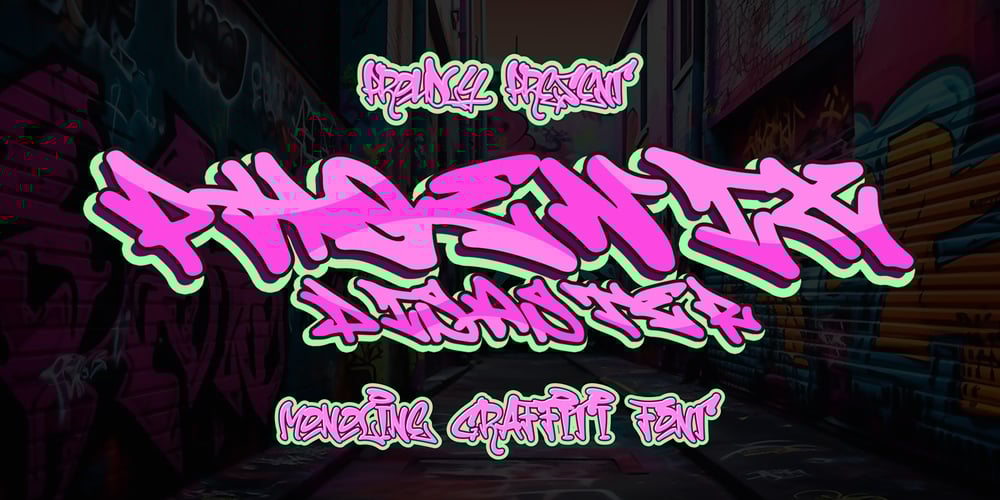
Phoenix Disaster Graffiti Font Family was designed by Sipanji and published by Sipanji21. Phoenix Disaster Graffiti contains 1 styles and family package options. Phoenix Disaster is a monoline graffiti font with natural street handwritten accents. This font is perfect for a wide range of design projects with an urban or street theme. With its edgy and raw style, Phoenix Disaster brings an authentic street vibe to your typography. Whether you’re working on urban branding, streetwear designs, or any other project that requires a gritty and dynamic look, this font will add a touch of urban flair and make your designs stand out. Unleash your creativity and embrace the urban energy with Phoenix Disaster font.